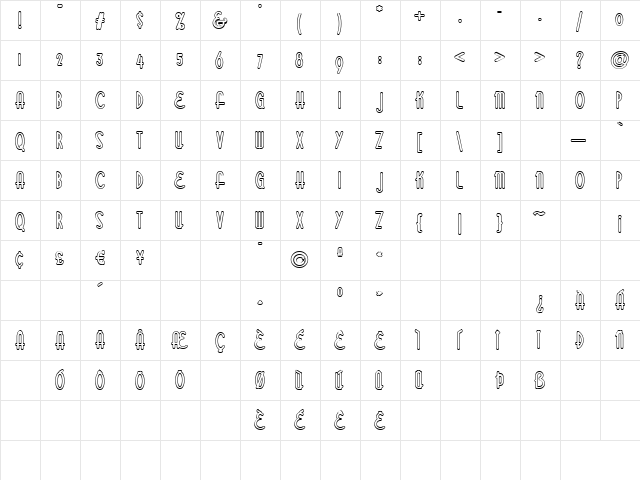
Bittersweet Capital Outline Regular Font Preview
Bittersweet Capital Outline Regular
Design Context for Bittersweet Capital Outline Typeface
Bittersweet Capital Outline is built around its visual character rather than neutral utility — its distinctive forms are designed to make an impression at display sizes.
Font Pairing: Pair with a clean neutral sans-serif for body copy to let Bittersweet Capital Outline's character lead without overwhelming the composition.
Pro Tip: Use Bittersweet Capital Outline exclusively at display sizes — it was designed to be seen, not read at length. Let a neutral companion handle body copy.